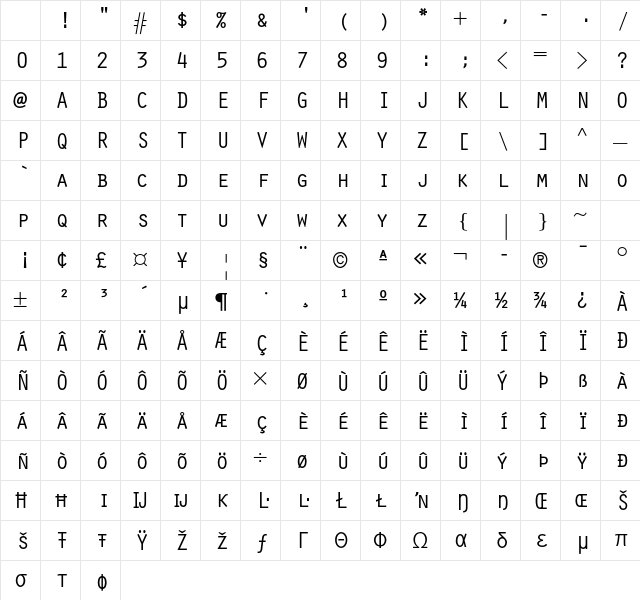
Orator Std Medium Free Font
Orator Std Medium
Designer: John Scheppler
Design Context for Orator Std
Orator Std is a composed and adaptable typeface that performs quietly and consistently across a wide range of design contexts.